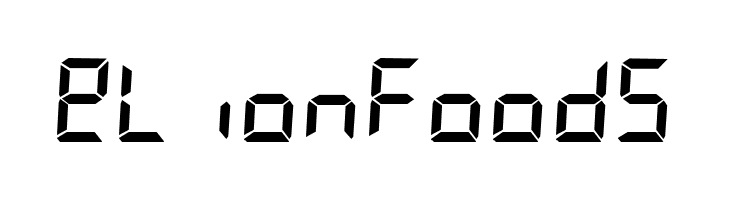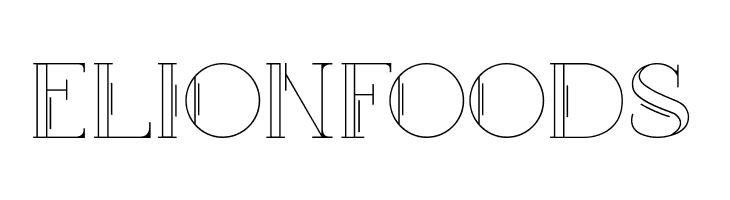
A clean, elegant font with modern aesthetics and subtle stroke contrast.
A lively, flowing script font with a handwritten appearance.
A calligraphic font with elegant, flowing strokes and dynamic line thickness.
An elegant outline font with geometric and classic elements, perfect for decorative use.
A whimsical, hand-drawn font with tall, narrow characters and a playful style.
An artistic and elegant font with decorative flourishes and a blend of classic and modern styles.
A geometric, angular font with bold, abstract forms for a modern, edgy look.